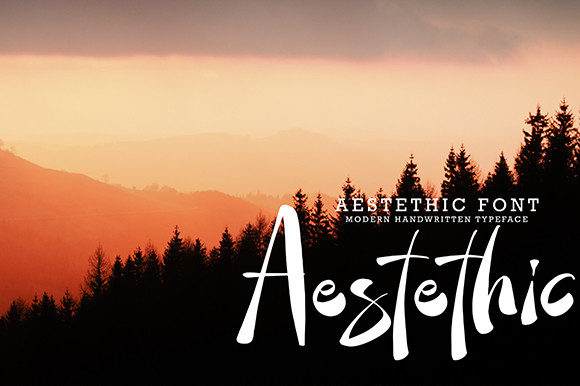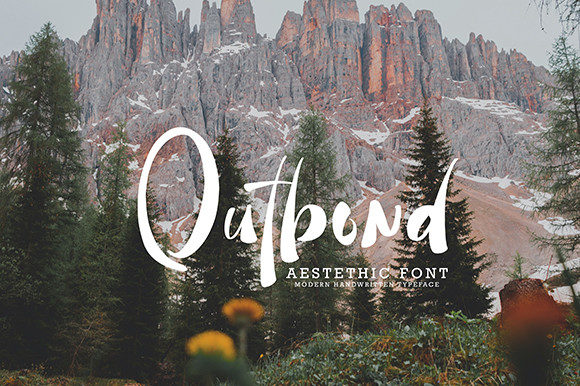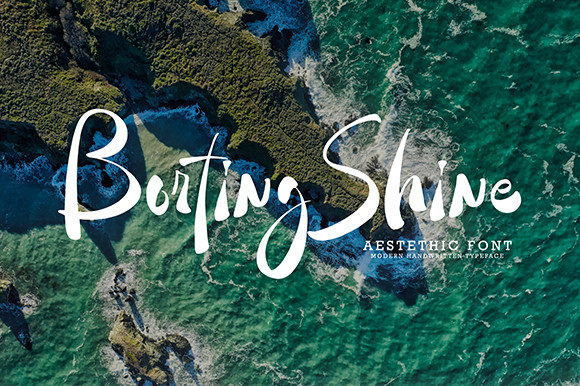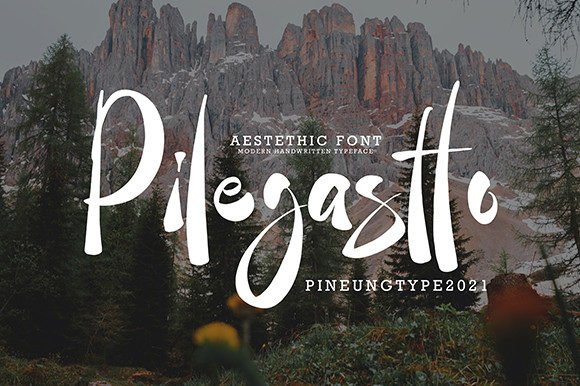
Introduction to Pilegastto Font
Pilegastto is a bold and stylish handwritten font perfect for quotes, logo, blog header, poster, banding, letter, invitation, stationery, and more.
👤 Author Pineungtype & Missinklab
Pilegastto is a bold and stylish handwritten font perfect for quotes, logo, blog header, poster, banding, letter, invitation, stationery, and more!
Pilegastto Font offers exceptional quality and versatility, making it a valuable addition to your design toolkit. Whether you’re creating for personal projects or commercial use, Pilegastto Font delivers professional results.